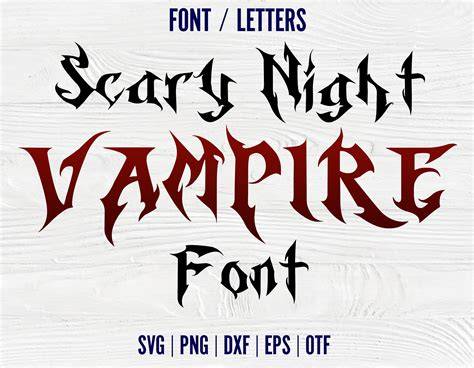
Vampire Fonts - The New Trend In 2023
What are Vampire Fonts?
Vampire fonts are a new trend in the world of typography in 2023. They are a type of font that has the same characteristics as a traditional font, but with a distinct vampire-like flair. Vampire fonts usually have a dark and spooky feel to them, but can also be quite stylish. Some of the features of vampire fonts include: pointed edges, sharp lines, and a gothic vibe. Vampire fonts are often used to create a mysterious or spooky atmosphere in text-based designs. They can also be used to add a bit of edge to a design or to create a unique look.
Where to Find Vampire Fonts
Vampire fonts can be found in a variety of sources, such as online font databases, graphic design software packages, and typeface websites. It is also possible to create your own vampire font by combining elements from different fonts. For example, you could combine the serifs of one font with the strokes of another font to create a unique vampire font. Additionally, some typeface websites offer pre-made vampire fonts that you can download and use. When looking for vampire fonts, be sure to check the license agreement to ensure that you are legally able to use the font in your project.
How to Use Vampire Fonts
Vampire fonts can be used in a variety of projects, such as logos, flyers, posters, and other text-based designs. When using vampire fonts, it is important to consider the overall design and ensure that the font fits with the overall aesthetic. For example, if you are creating a logo for a horror movie, a more traditional vampire font might be a better choice than a more modern font. Additionally, it is important to consider the size of the font, as some vampire fonts can be difficult to read at small sizes.
Tips for Using Vampire Fonts
When using vampire fonts, there are a few tips to keep in mind. First, be sure to use the font sparingly, as too much of a good thing can be overwhelming. Additionally, be sure to use the font in a way that complements the design. For example, if you are creating a logo for a horror movie, it might be best to use a more traditional vampire font, such as an old-style script font. Finally, be sure to keep the text legible, as some vampire fonts can be difficult to read at small sizes.
Vampire fonts are a great way to add a unique and spooky feel to any text-based design. They can be found in a variety of sources, such as online font databases, graphic design software packages, and typeface websites. When using vampire fonts, it is important to consider the overall design and ensure that the font fits with the overall aesthetic. Additionally, be sure to use the font sparingly, as too much of a good thing can be overwhelming. Following these tips can help you create a design that is both stylish and spooky.